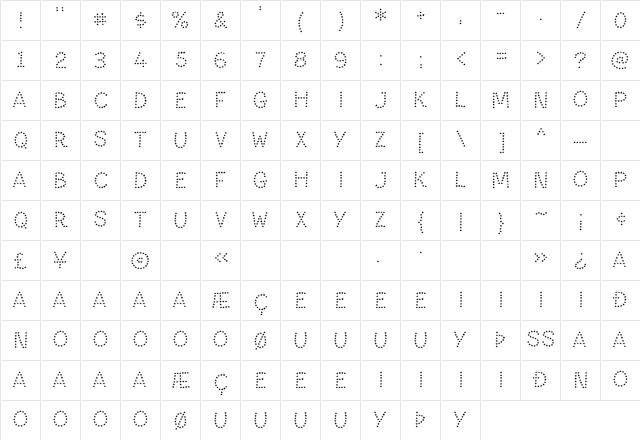
Paltime Star Font Preview
Paltime Star
Design Context for Paltime Typeface
Paltime takes a measured approach to typography — its balanced proportions and neutral character make it a reliable workhorse for both digital and print work.